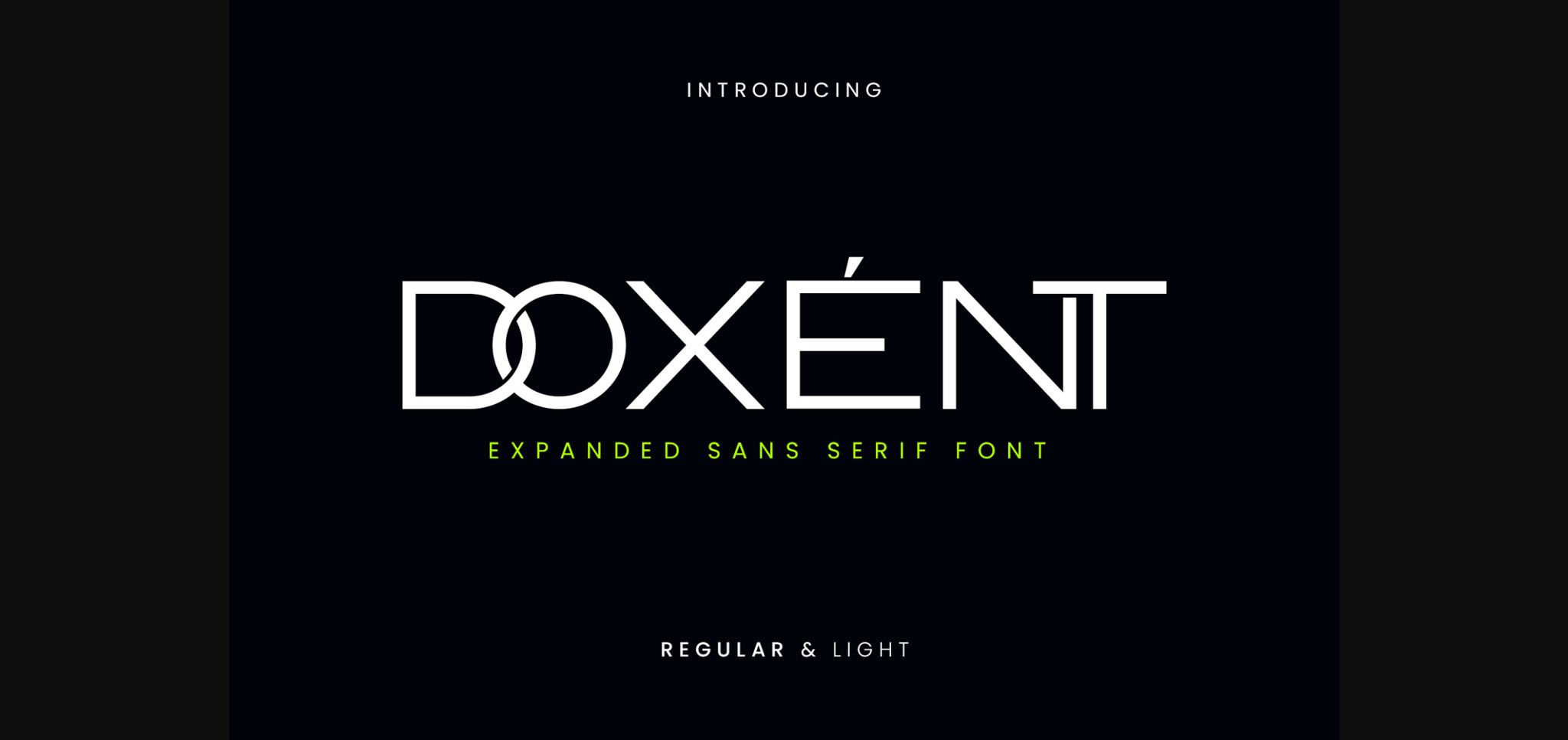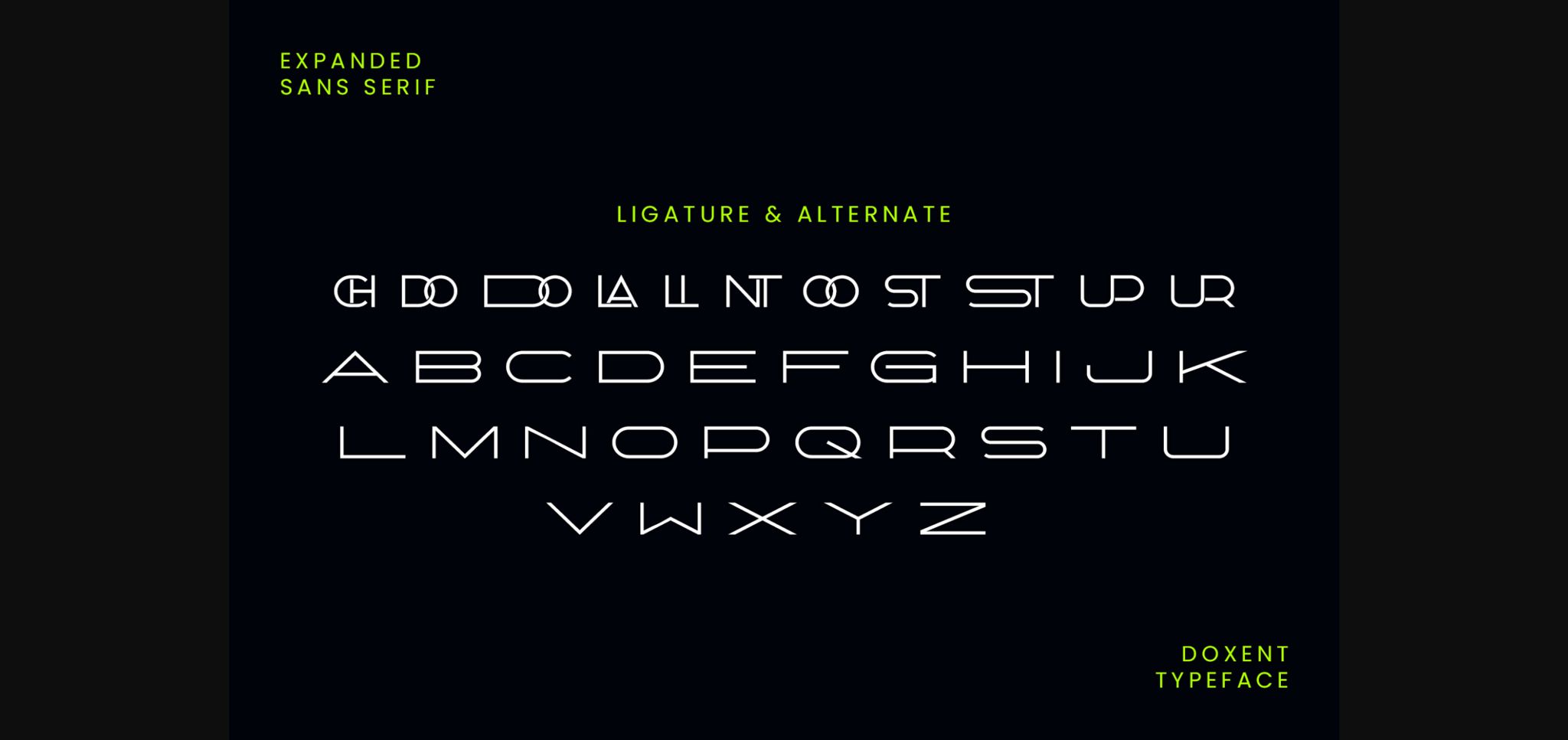
About Doxent Font
Doxent Sans Serif is a balanced, smooth, elegant, and stylish sans-serif font. He has a beautiful character. It fits perfectly with invitation card designs, company logos, movie titles, movie names, business cards, book titles, brand names, and various other designs. Doxent Sans Serif is a subtle sans serif font that exudes sophistication and elegance. Its stylish alternations and ligatures make this font the perfect partner for any project.